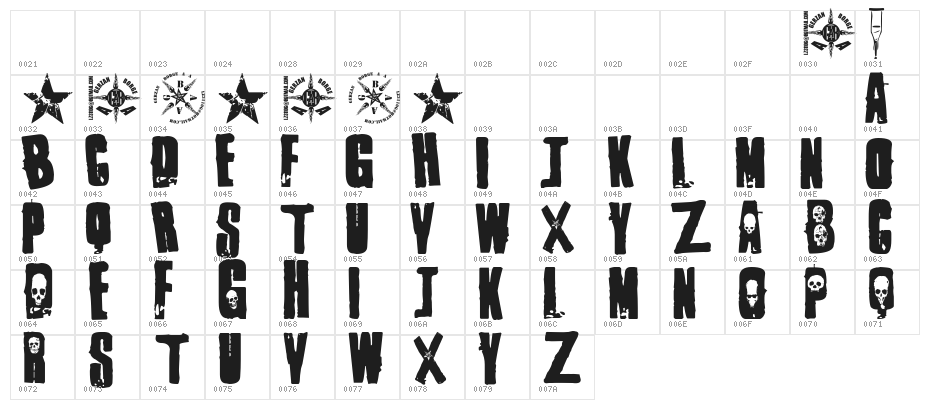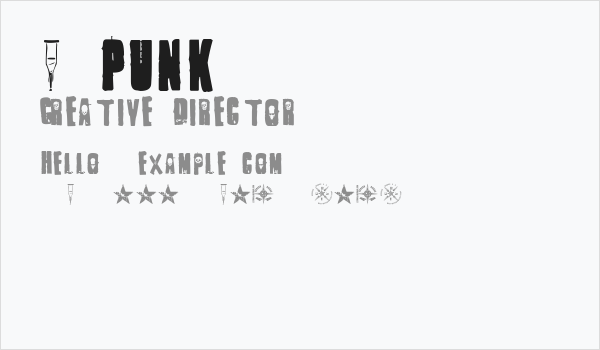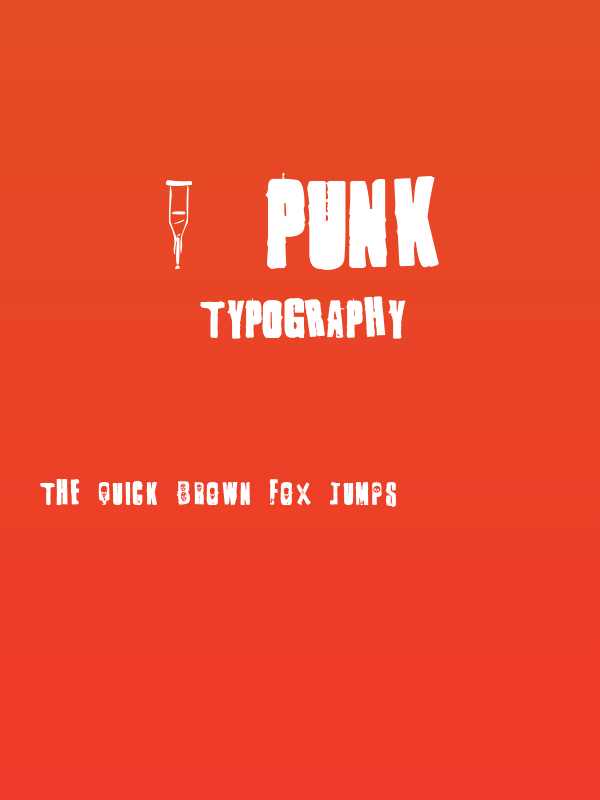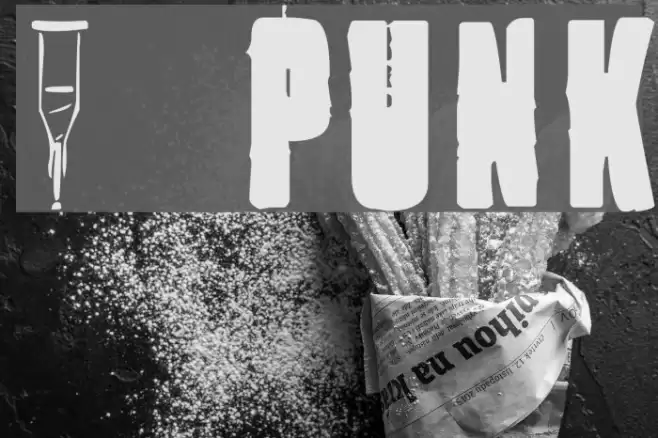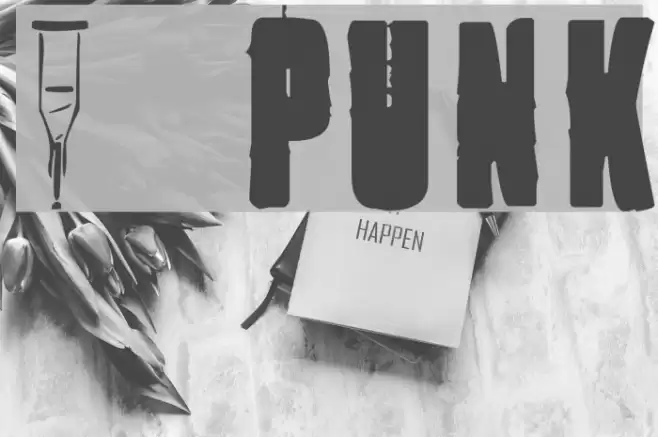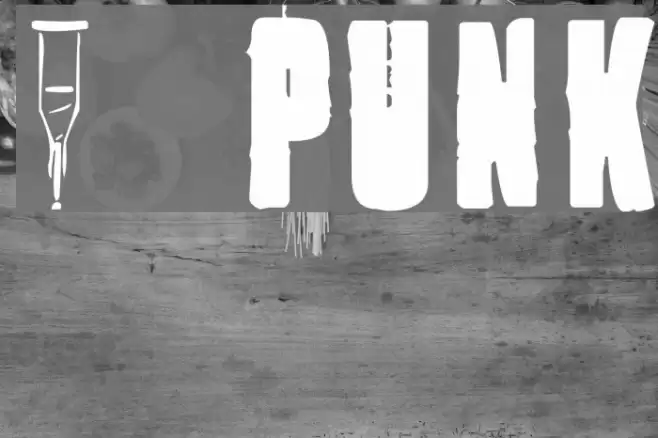
1 Punk Font
1 Punk Description
This font exudes a rebellious and edgy vibe, characterized by its distressed and grungy appearance. Each letter is uniquely styled with rough edges and irregular shapes, giving it a raw and unpolished look. The incorporation of skull motifs within some of the letters adds a punk rock aesthetic, enhancing its bold and daring personality. This font is perfect for projects that aim to convey a sense of defiance and nonconformity. Its bold, heavy strokes and uneven texture make it stand out, capturing attention with its distinctive style.
| Overall Style | Punk, Grunge, Edgy |
| Use Case | Logos, Posters, Album Covers |
| Proposed Projects | Ideal for music album covers, band posters, edgy fashion branding, and rebellious-themed designs. |